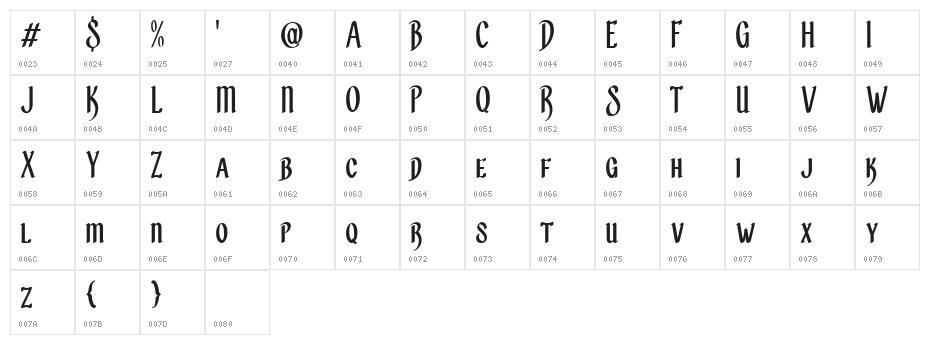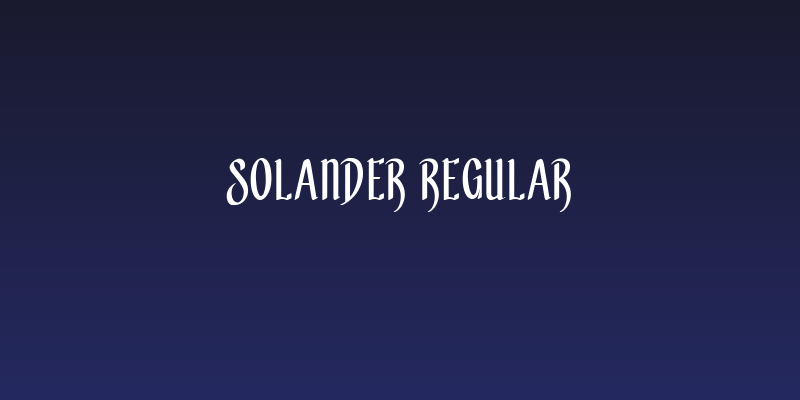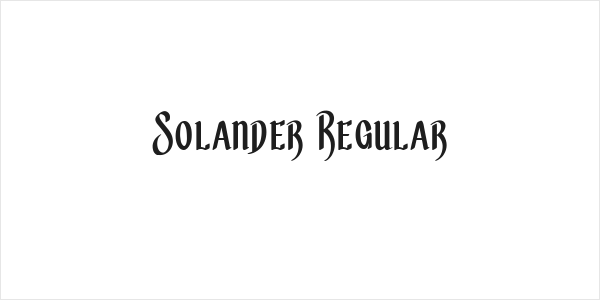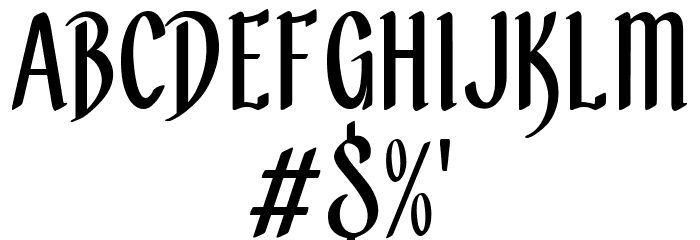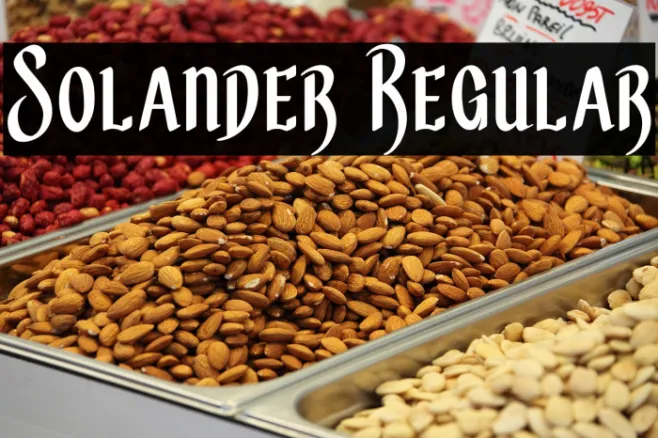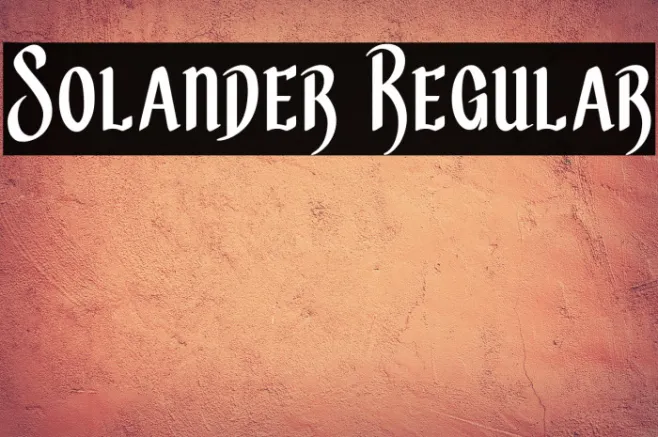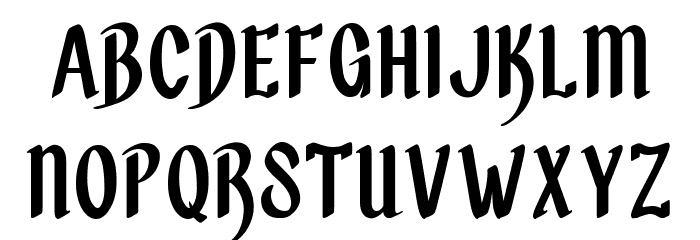
Solander Regular Font
Solander Regular Description
This font features a bold and dynamic style with a distinct flair in its character design. The uppercase letters are tall and slightly condensed, with elegant curves and sharp angles that give it a unique and artistic appearance. The lowercase letters maintain a consistent style, offering a harmonious blend of traditional and modern elements. The numerals are clear and bold, matching the overall aesthetic of the font. Special characters are designed with the same attention to detail, ensuring a cohesive look across all glyphs. This font is suitable for projects that require a touch of sophistication and creativity.
| Proposed Projects | Ideal for branding, posters, headlines, and creative design projects. |